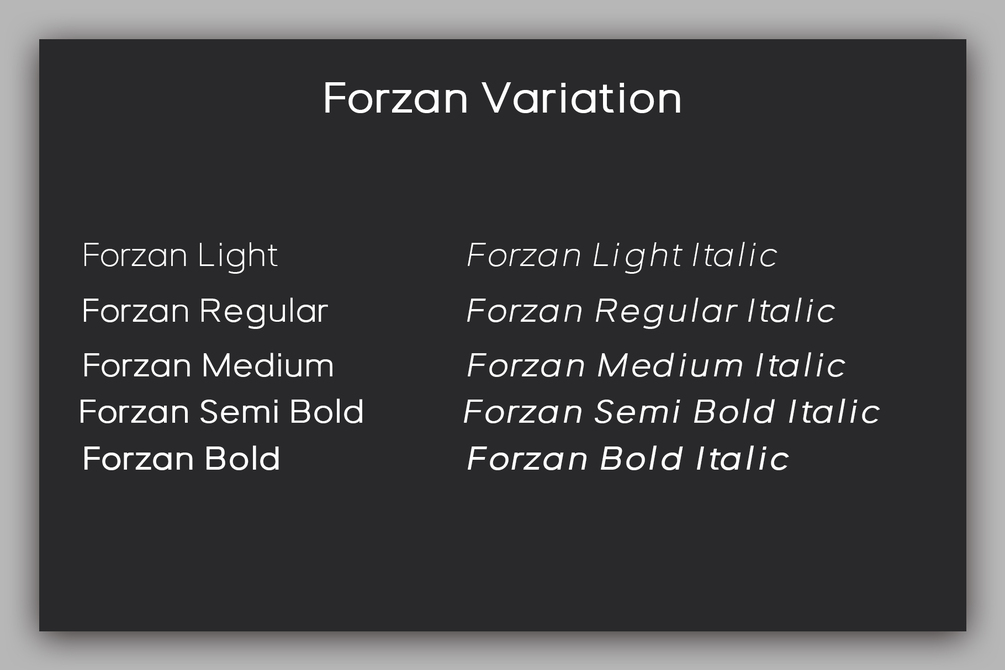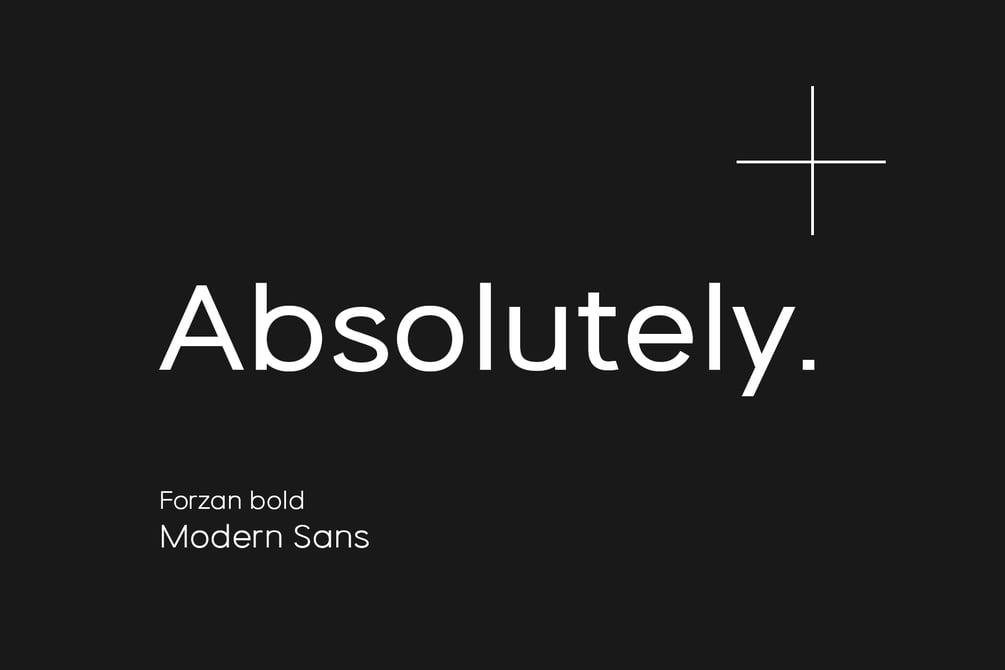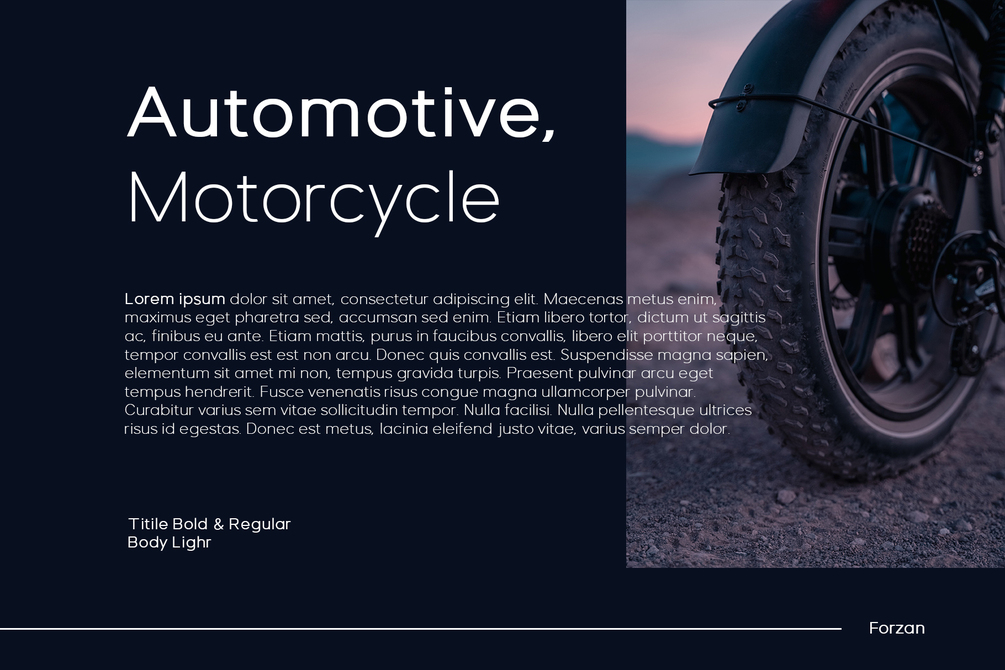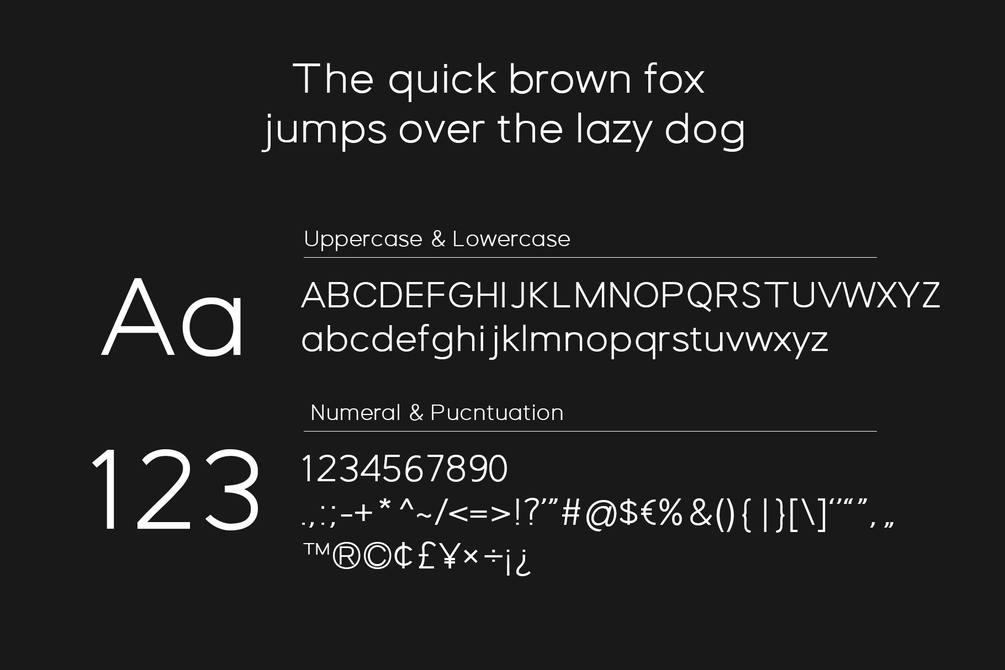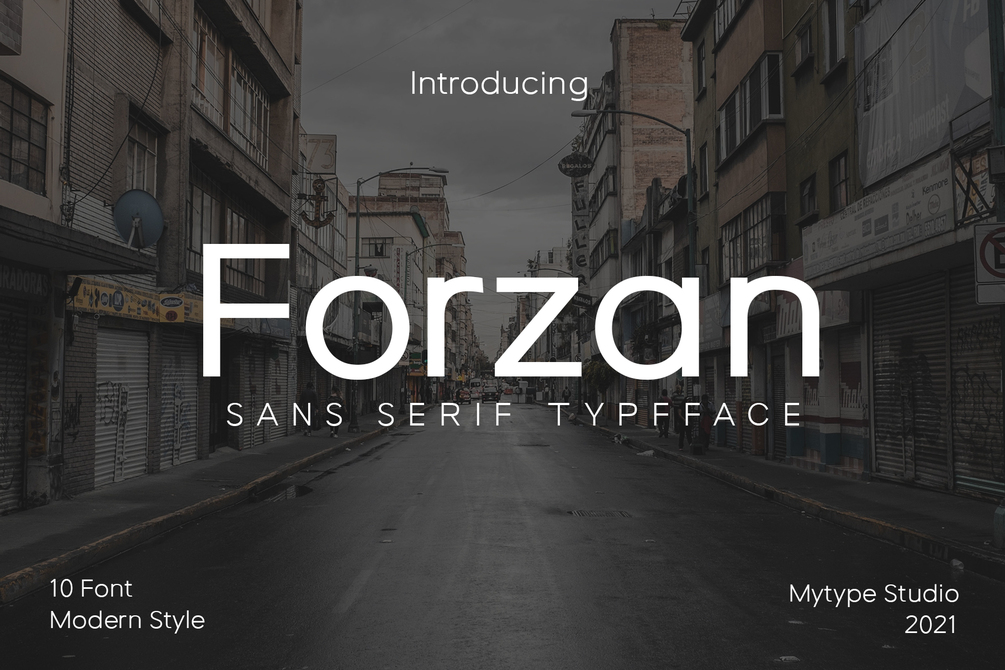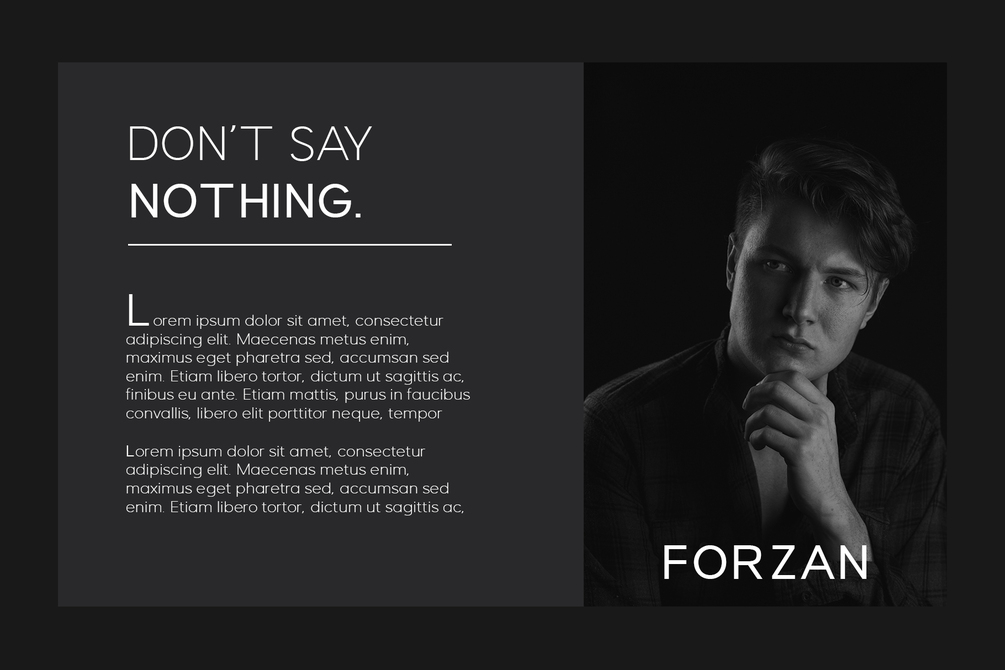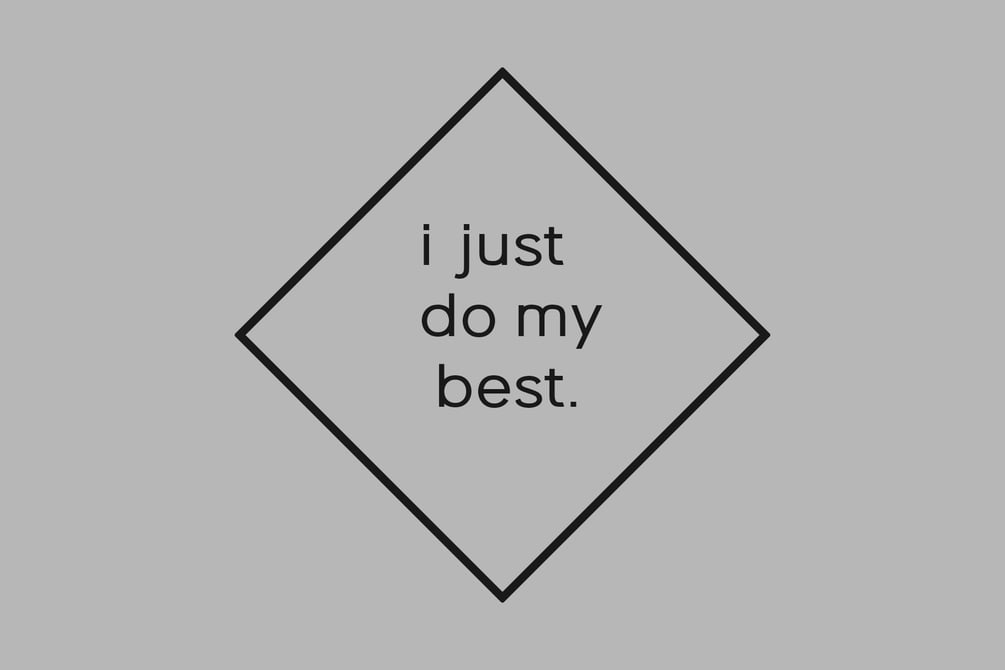
Forzan - Sans Serif Typeface
Forzan is collection font with natural movement make looks elegant, classy and beauty for your project. Forzan is perfect for branding projects, logo, wedding designs, social media posts, advertisements, product packaging, product designs, label, photography, watermark, invitation, stationery and any projects